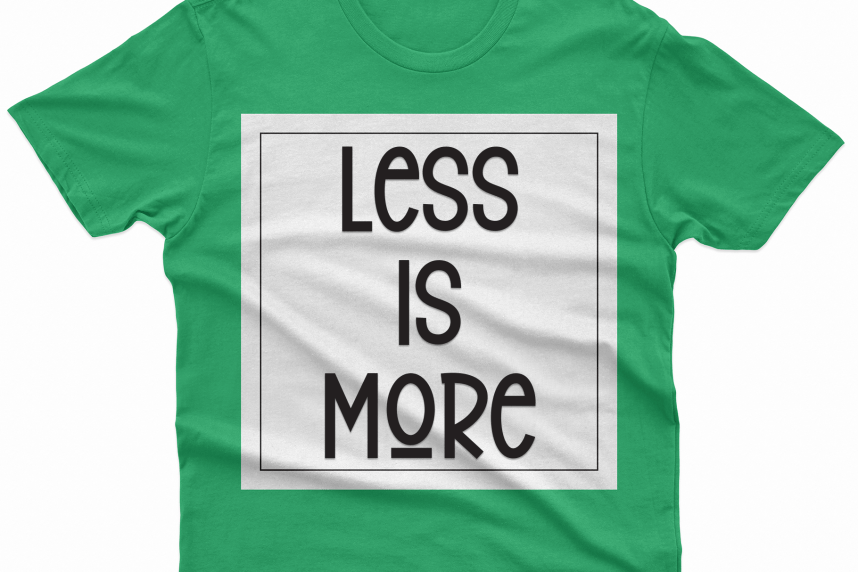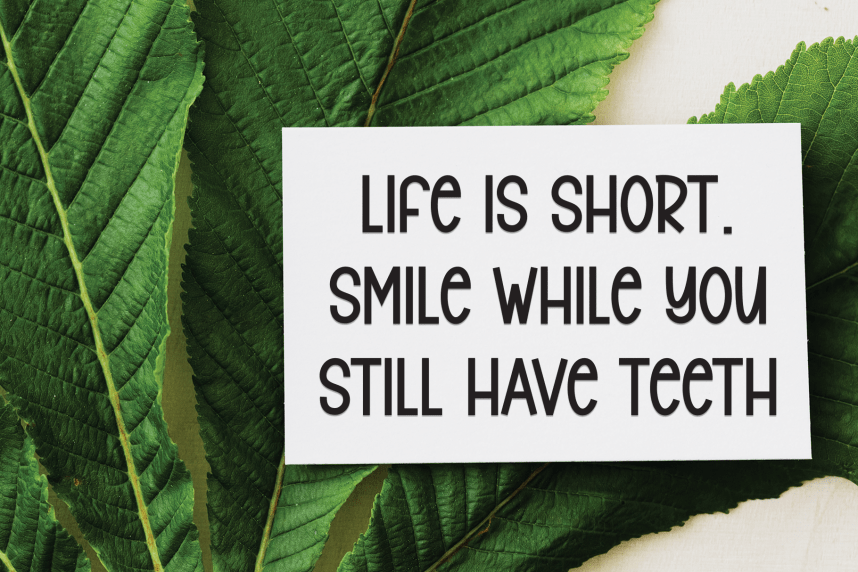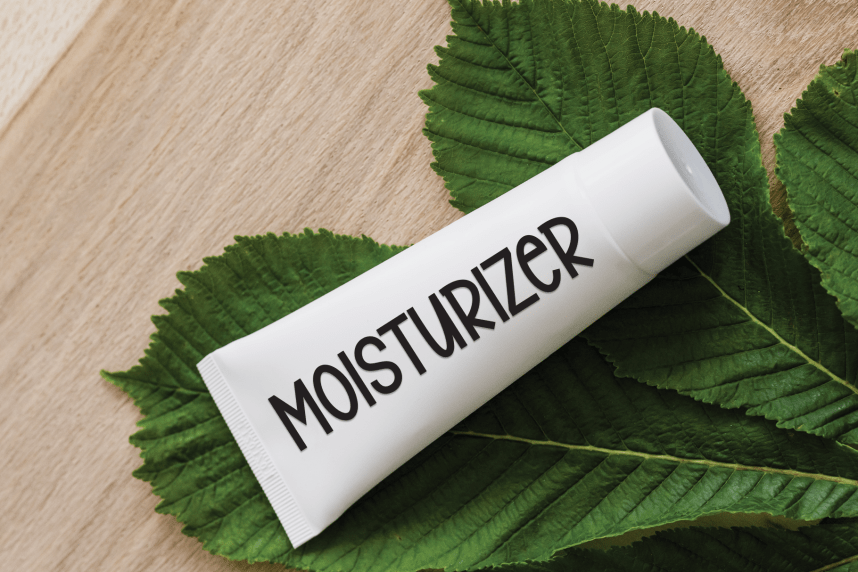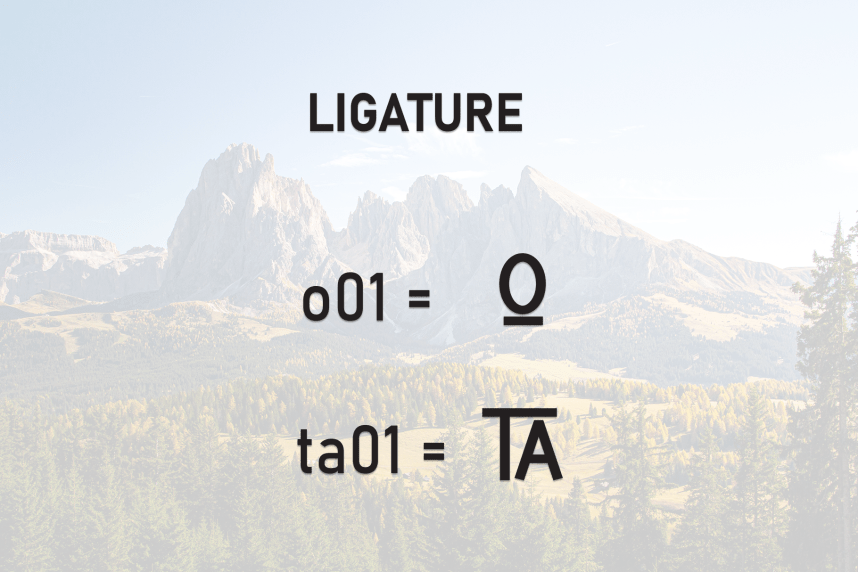
Mountain – Simple Playful Font is a sweet and friendly handwritten display font. Cute and fun, this font is ideal for writing wedding invitations, cards, or any other design that might need a playful touch!